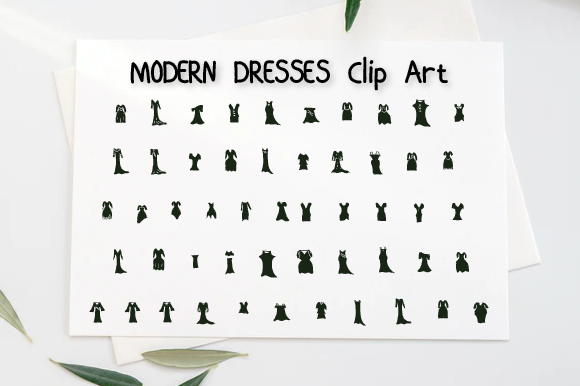
**Introducing Modern Dresses: The Dashing Dingbat Font That Will Make Your T-shirt Designs Pop!**
Unleash your creativity and take your T-shirt designs to the next level with Modern Dresses, the font that's taking the fashion world by storm. This captivating dingbat font is a treasure trove of charming and playful icons, meticulously crafted to add a touch of whimsy and personality to your designs.
**A Stroke of Creative Genius**
Step into the world of Ciriative, the creative mastermind behind Modern Dresses. With an innate understanding of what makes a font truly special, Ciriative has poured their heart and soul into this creation, resulting in a font that's both visually stunning and incredibly versatile.
**A Symphony of Fashion-Forward Designs**
Modern Dresses is not just a collection of symbols; it's an ode to the world of fashion. Each icon is a carefully curated representation of the latest trends and styles, ensuring that your T-shirt designs are always on-point and captivating. From chic dresses and trendy accessories to eye-catching patterns and motifs, Modern Dresses has everything you need to make your designs shine.
**The Perfect Canvas for Your Creative Vision**
Modern Dresses is more than just a font; it's an invitation to let your creativity run wild. Whether you're designing for a casual day out or a special occasion, this font has the power to transform your ideas into stunning realities. It's the perfect choice for fashion-forward designers who appreciate the finer details and want their designs to leave a lasting impression.
**A Touch of Personality, a Burst of Style**
With Modern Dresses, you're not just adding text to your designs; you're infusing them with personality and style. Each icon is meticulously designed to capture the essence of modern fashion, allowing you to create T-shirts that are both visually appealing and deeply meaningful.
**Experience the Modern Dresses Difference Today!**
Don't settle for ordinary fonts that blend into the background. Choose Modern Dresses and watch your T-shirt designs come to life with a burst of creativity and charm. Embrace the power of this remarkable dingbat font and unlock a world of possibilities for your fashion-forward designs.